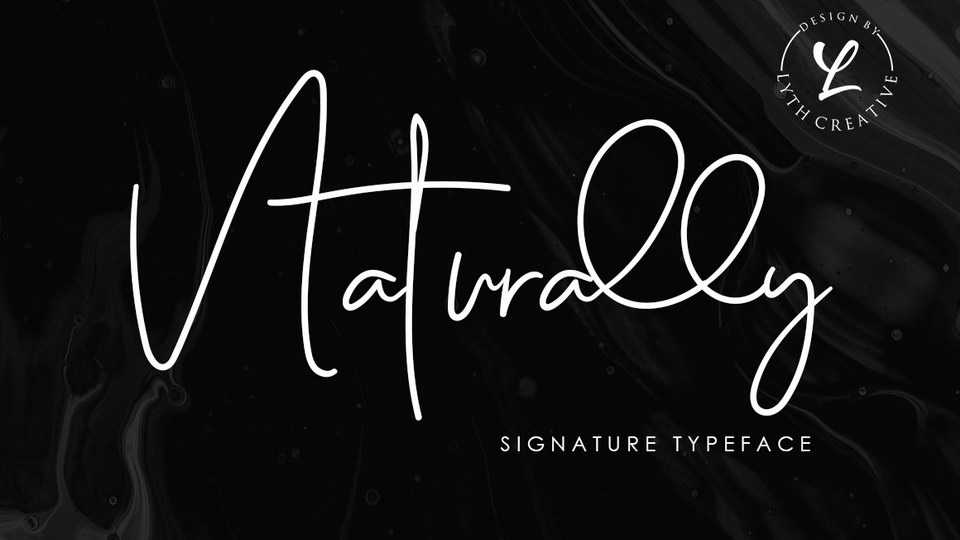
Download Naturally font, a stylish handwritten script with a casual signature style. Naturally script offers your personal touch to your latest art project with elegant, classy and modern look.